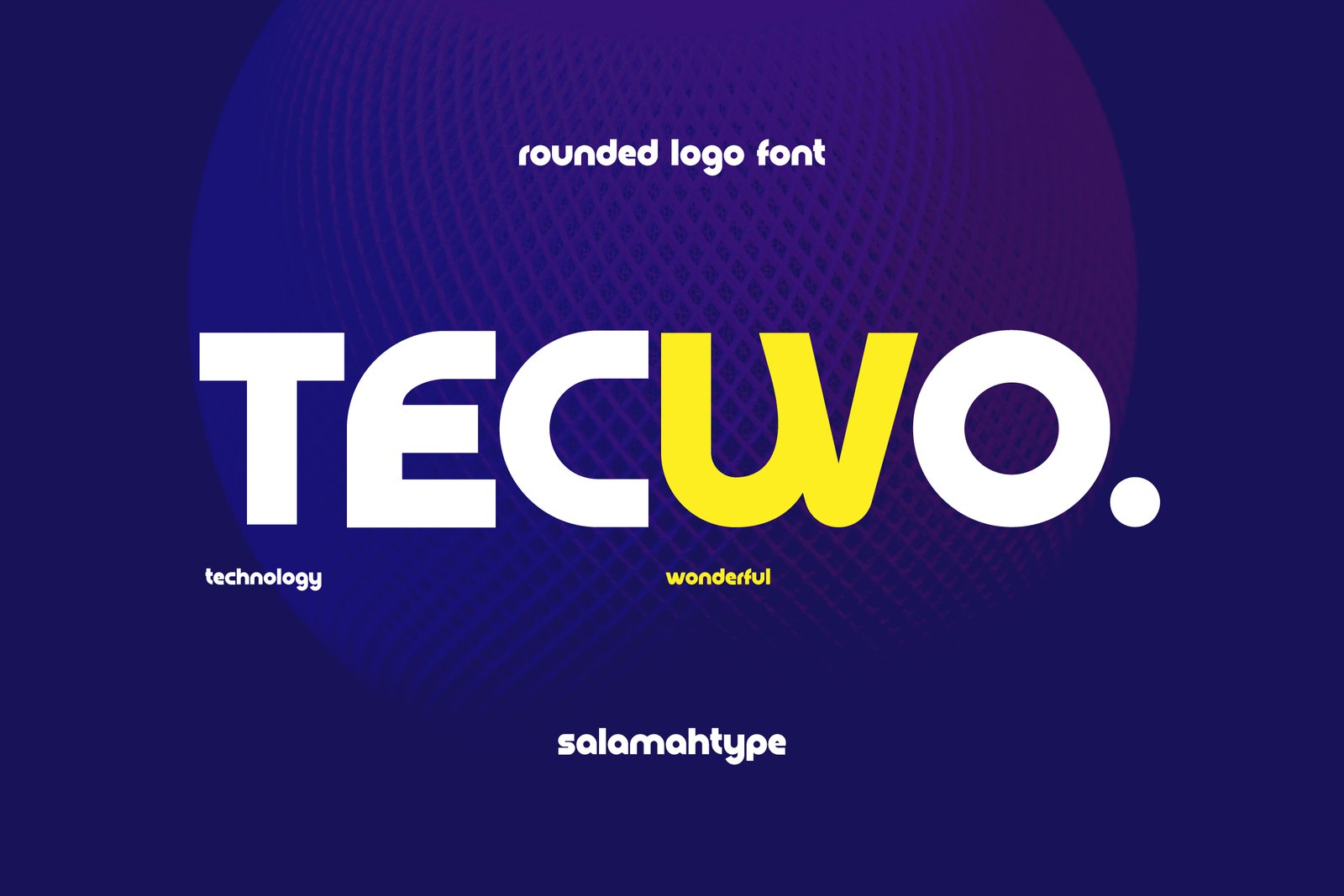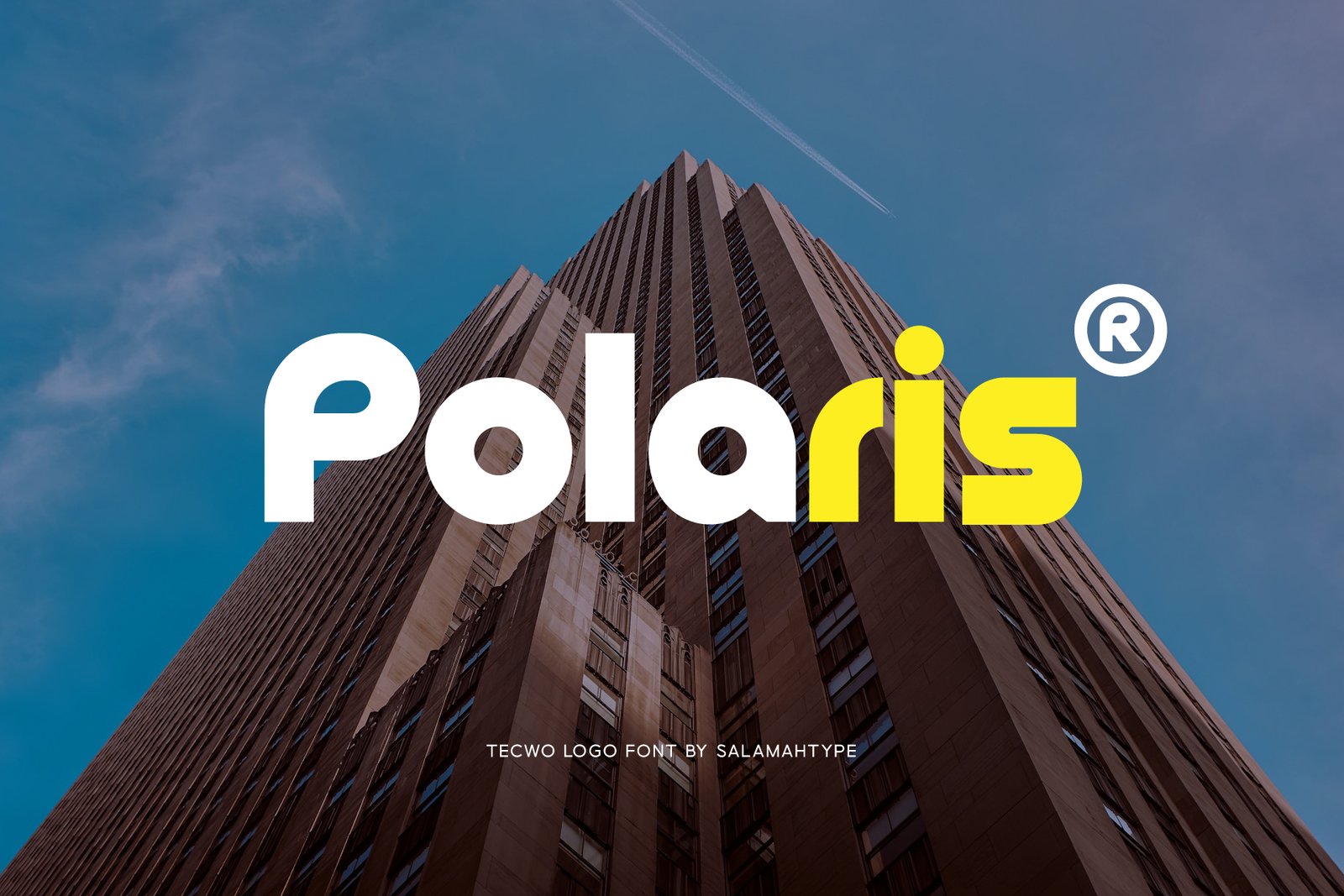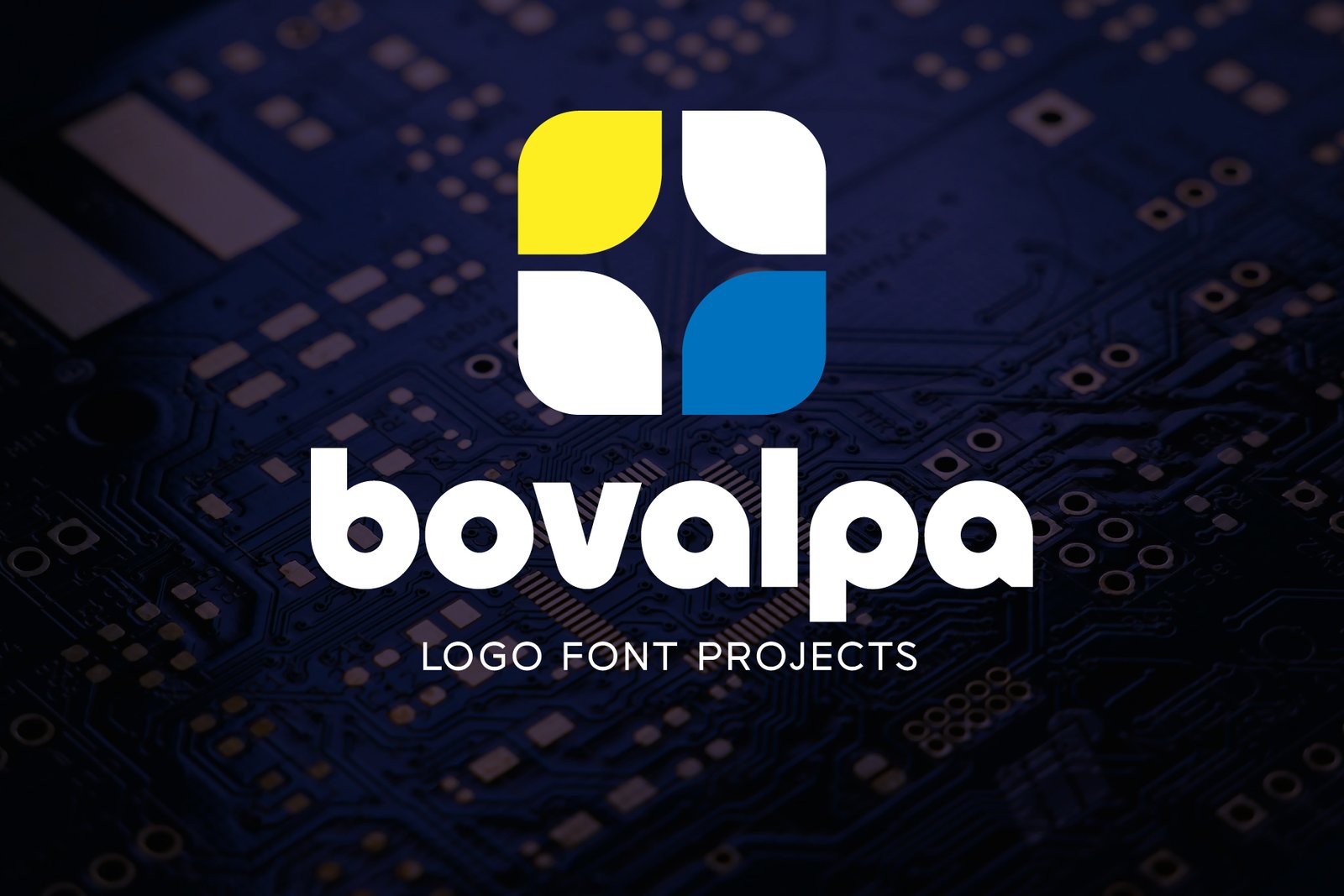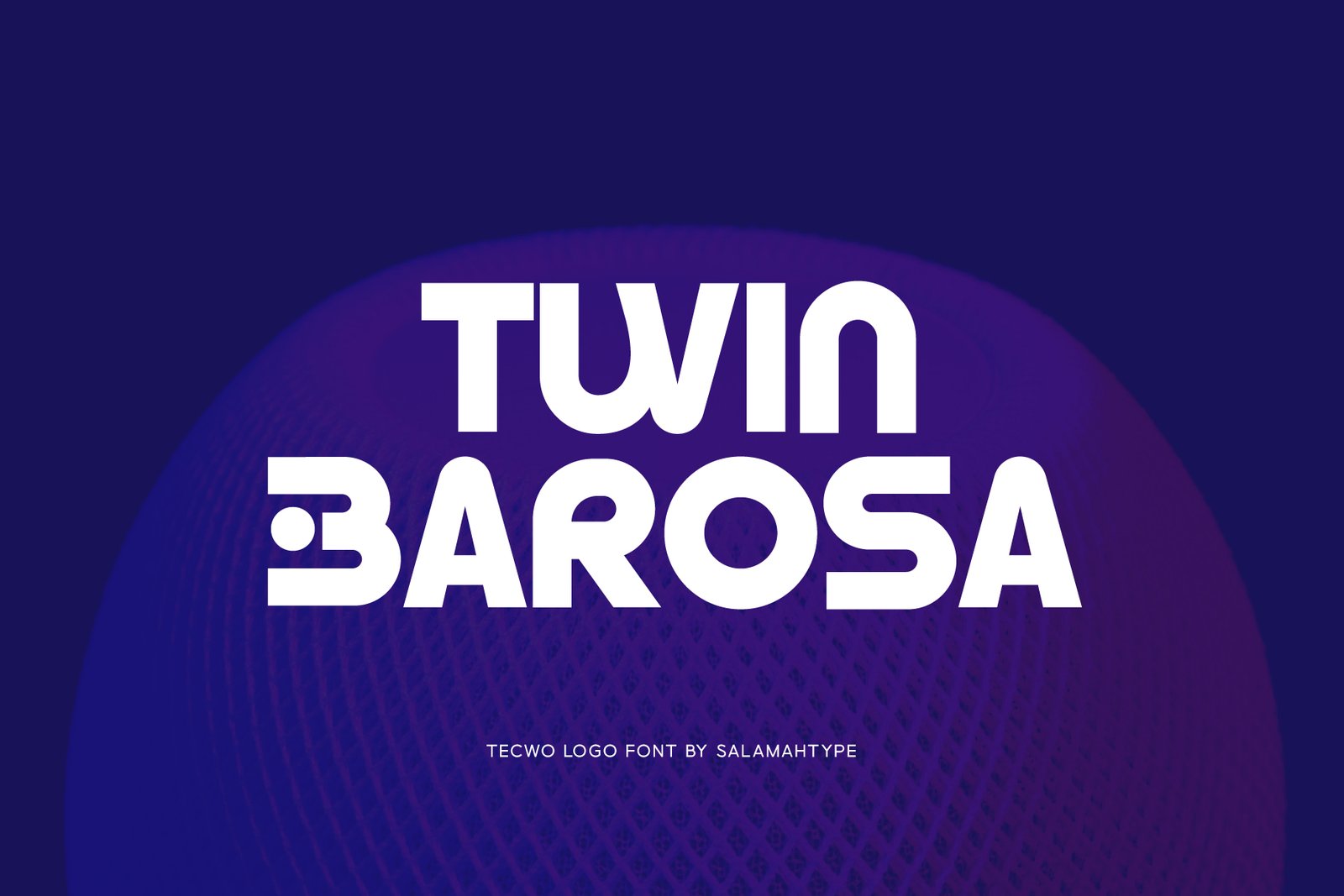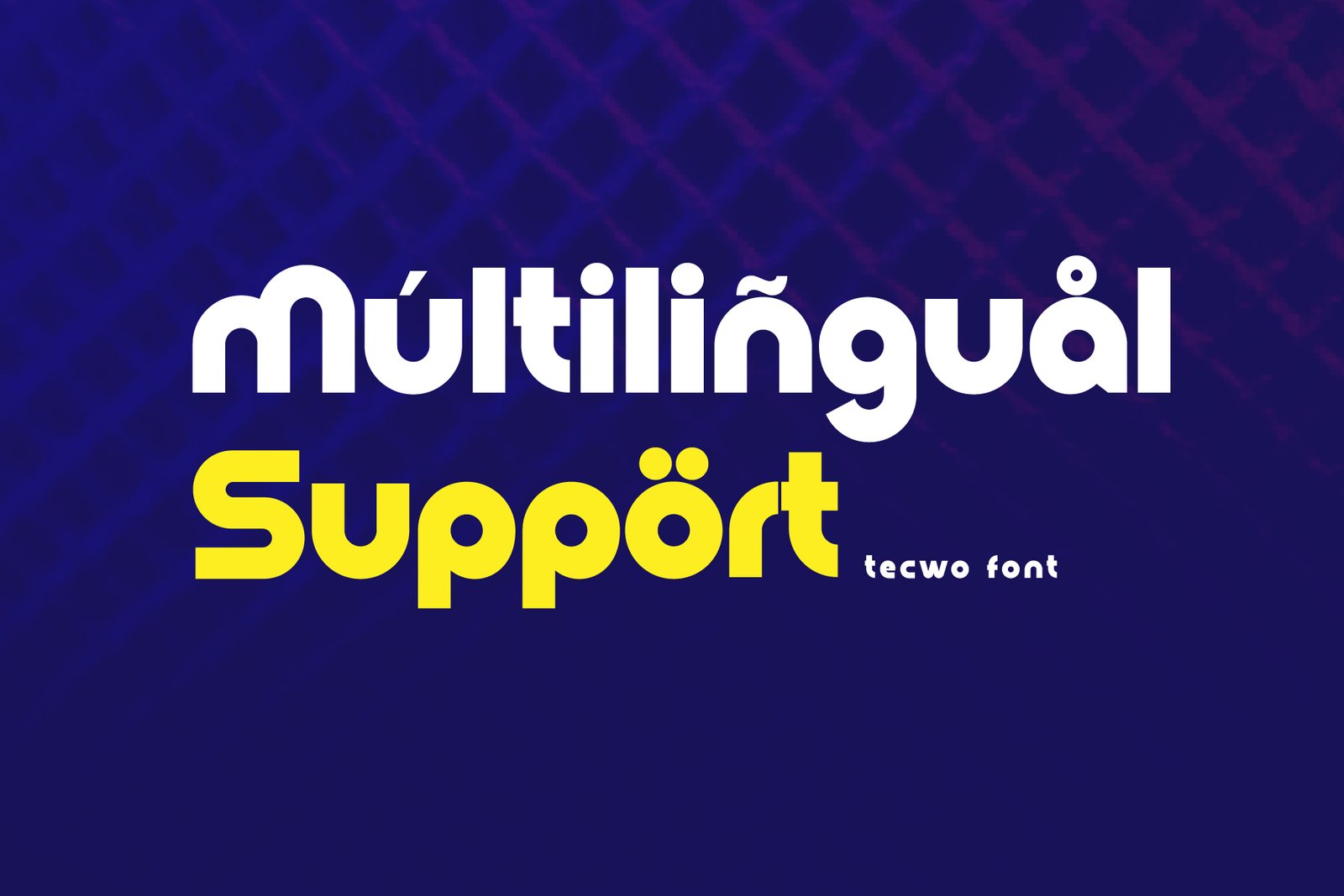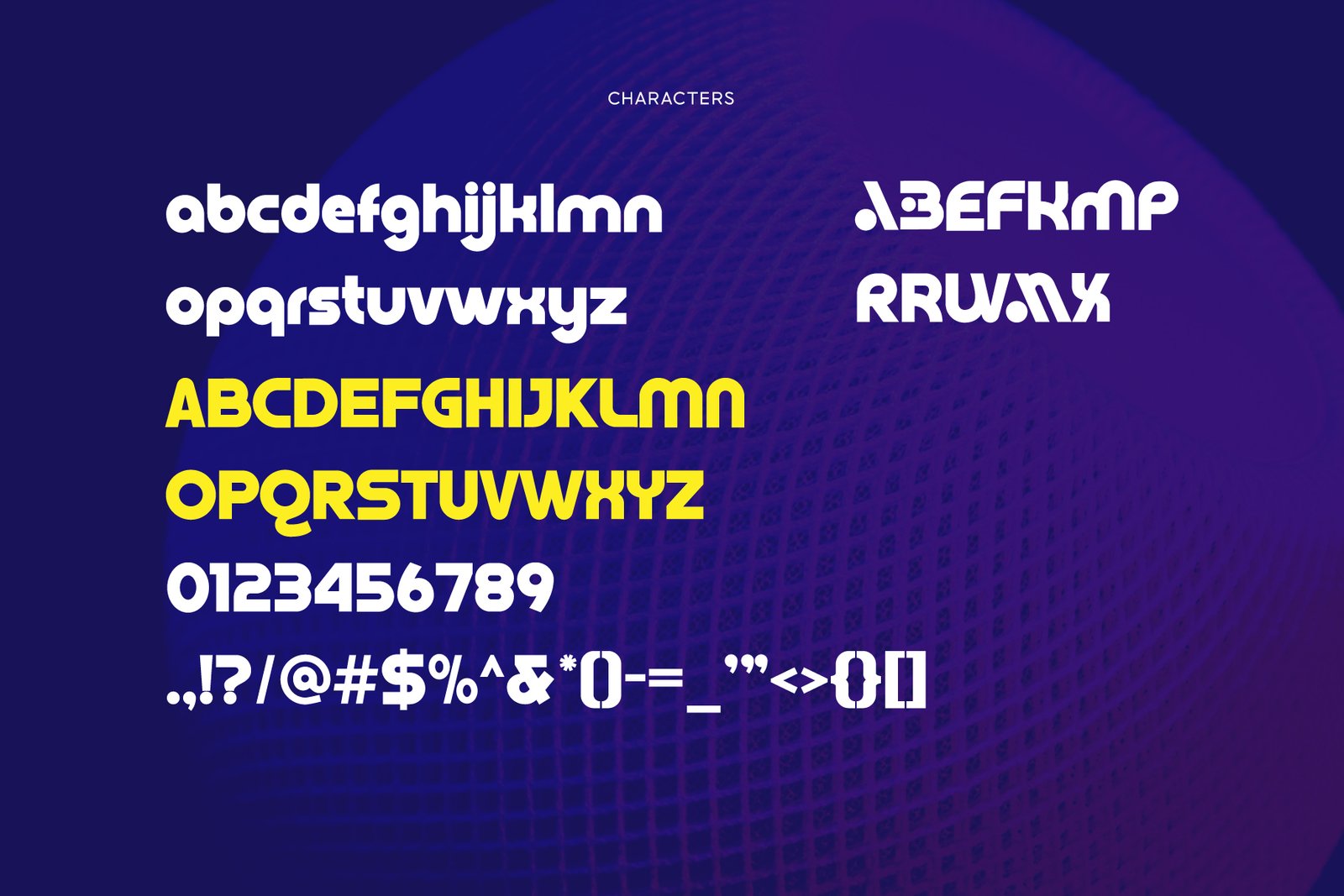
TECWO is a sleek, rounded font that’s perfect for modern logo designs. Its smooth curves and bold appearance make it ideal for technology brands, startups, and businesses looking for a futuristic yet approachable aesthetic. Whether you're crafting a high-tech logo or a creative brand identity, TECWO offers a balance of professionalism and style.Features :
* Uppercase and Lowercase
* Numbers and Symbols
* Alternates
* Multilingual Support